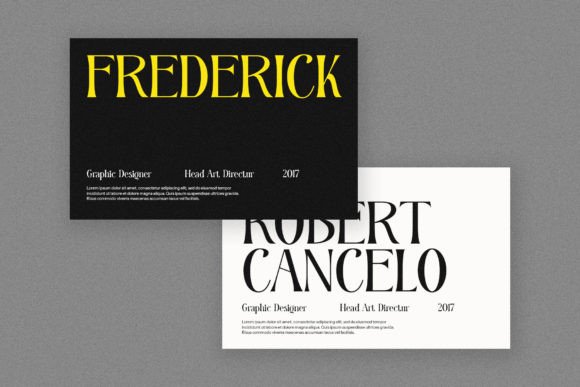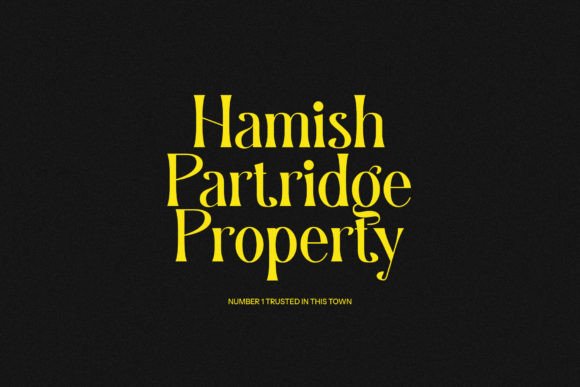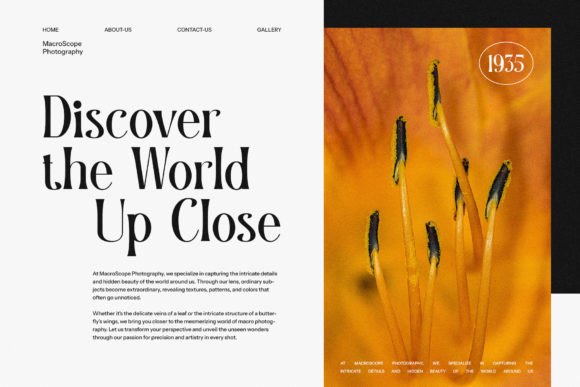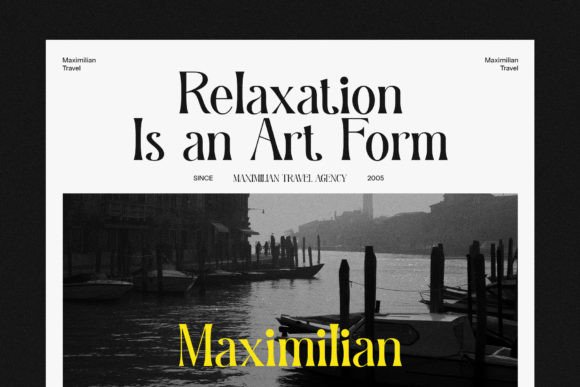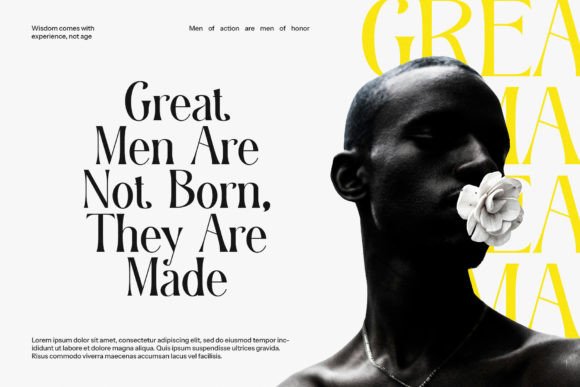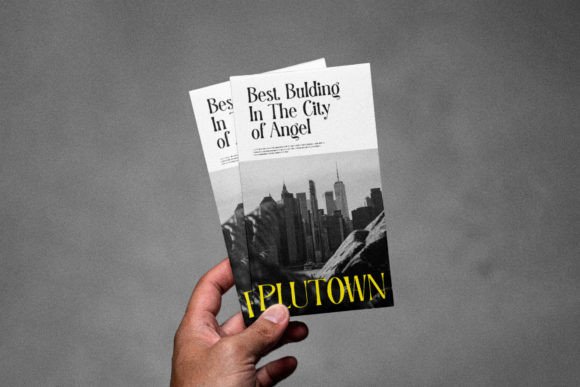
Introducing Glifan Font: Elevate Your Designs with Sophistication and Luxury
In the world of typography, a well-crafted font can make all the difference in elevating your design from ordinary to extraordinary. Glifan Font is a stunning example of a sophisticated ligature serif typeface that exudes premium quality and luxury feel. Designed with meticulous attention to detail, Glifan is poised to transform your visual creations into masterpieces of elegance and refinement.
The Unique Charm of Ligatures
What sets Glifan apart from regular serif fonts is its unique ligature feature. Ligatures are special characters that combine two or more letters into a single glyph, creating a distinctive and harmonious visual effect. In Glifan, these ligatures have been carefully crafted to add an extra layer of sophistication to your designs, making it perfect for projects where making a lasting impression is paramount.
Glifan Font is incredibly versatile, making it suitable for a wide range of applications. Whether you’re designing a logo, headline, title, or any formal document such as invitations, labels, magazines, books, greeting or wedding cards, packaging, fashion, makeup, stationery, novels, or advertising materials, Glifan is the perfect choice. Its adaptability ensures that your designs will always look polished and professional, regardless of the medium.
Crafting with Glifan: Endless Possibilities
For designers and crafters, Glifan offers a playground of creative possibilities. Imagine crafting a wedding invitation that exudes romance and luxury, a book cover that promises a tale of mystery and intrigue, or a fashion label that screams style and sophistication. With Glifan, every project becomes an opportunity to push the boundaries of design and create something truly memorable.
Why Choose Glifan?
- Premium Quality: Glifan is designed with the highest standards of typography in mind, ensuring that every glyph is of premium quality.
- Luxury Feel: The ligatures and serif details give Glifan a luxurious feel that’s perfect for high-end designs.
- Unique Ligatures: The distinctive ligatures in Glifan make it stand out from more traditional serif fonts.
- Versatility: From logos to long-form content, Glifan performs exceptionally well across various design needs.
Tips for Using Glifan Effectively
To make the most of Glifan, consider the following tips:
- Pair with Simplicity: Let Glifan be the star of your design. Pairing it with simpler fonts or backgrounds can help highlight its unique features.
- Experiment with Sizes: Glifan looks great in various sizes. Experiment with different sizes to see how it can be used for both headings and body text.
- Utilize Ligatures: Make sure to use the ligatures to add a touch of elegance to your text.
Glifan Font is more than just a typeface; it’s a design statement. With its sophisticated ligature serif design, it offers a unique blend of elegance, luxury, and versatility. Whether you’re a professional designer or a DIY crafter, Glifan provides the tools to elevate your projects and make them stand out. Dive into the world of premium typography with Glifan and discover a new level of design excellence.